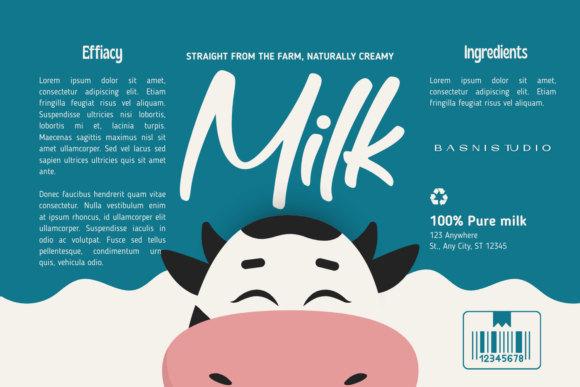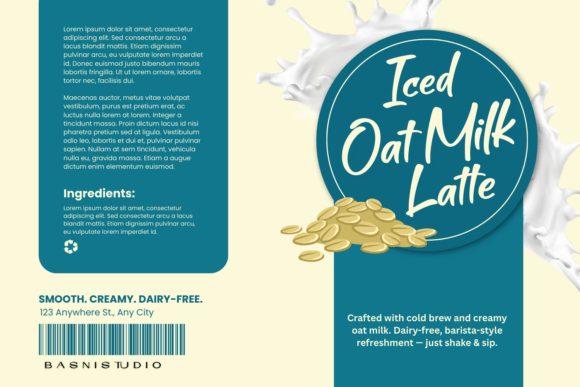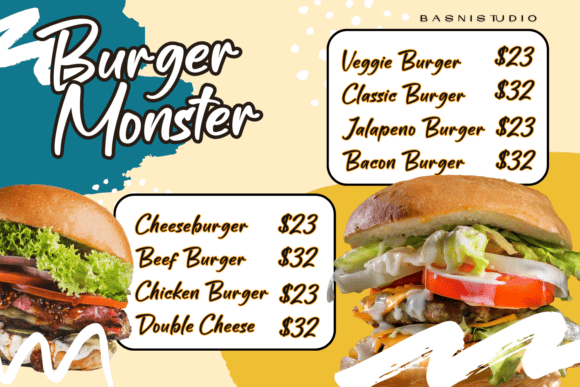
Introduction to Roster York Font
There’s nothing quite like the thrill of brainstorming a new creative project, surrounded by scribbled notes and scattered sketches. It’s a moment where ideas flow freely, and the only limit is your imagination. But, let’s be honest – finding the perfect design resource to bring your vision to life can be just as daunting as the project itself. That’s where the Roster York Font comes in – a game-changing addition to any designer’s toolkit.
This casual, handwritten font captures the raw, energetic soul of street art and authentic brushwork, striking a perfect balance between urban grit and approachable charm. With its fluid, expressive strokes and bold, confident letterforms, Roster York Font is the perfect choice for designers who want to add a human touch to their work.
Whether you’re designing eye-catching social media graphics, modern branding for a creative studio, or edgy apparel, Roster York Font is a high-quality design resource that’s sure to stand out. Plus, with its transparent background and free download option, it’s an accessible and valuable addition to any designer’s arsenal.
Key Features of Roster York Font
- High-quality design resource ideal for creative projects, offering a professional and modern look.
- Unique characteristic: Roster York Font boasts a unique blend of modern and classic elements, making it suitable for a wide range of creative projects.
- Perfect for designers seeking a high-quality, versatile font for their next project, be it digital or print-based.
Honest Review: Roster York Font
I recently had the opportunity to work with the Roster York Font, and I must say it’s been a game-changer for my creative projects. This versatile font is a fantastic addition to any design resource arsenal, offering a unique blend of elegance and sophistication.
One of the standout features of the Roster York Font is its high quality design. The font’s clean lines and subtle flair make it perfect for a wide range of applications, from business cards to wedding invitations. The transparent background option is also a bonus, allowing for seamless integration with any design element.
- Unique blend of elegance and sophistication
- Transparent background option for easy integration
⚠️ While the Roster York Font is generally excellent, I did notice that it can be a bit difficult to read at very small font sizes. This isn’t a major issue, but it’s something to be aware of when using the font in certain applications.
Overall, I’m thoroughly impressed with the Roster York Font. Its high quality design, versatility, and transparent background option make it an excellent addition to any design resource collection. Whether you’re working on a business project or a personal creative endeavor, this font is sure to deliver.
The Roster York Font is a versatile design resource that can be used for a variety of creative projects. Some common use cases include: titles, headings, and body text for presentations and documents; labels and tags for products and packaging; and even social media graphics and posts. To get the most out of the Roster York Font, try experimenting with different font sizes, colors, and alignments to create visually appealing designs.